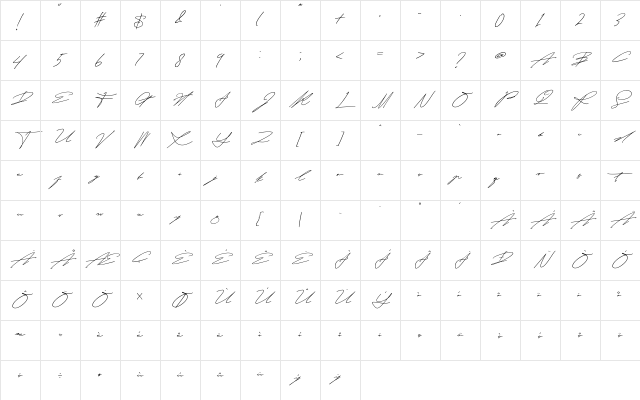
Romieda Regular Free Font
Romieda Regular
Designer: Designed by Muhamad Ali H., Designer from Mozyen Studio
Design Context for Romieda
Romieda is a composed and adaptable typeface that performs quietly and consistently across a wide range of design contexts.